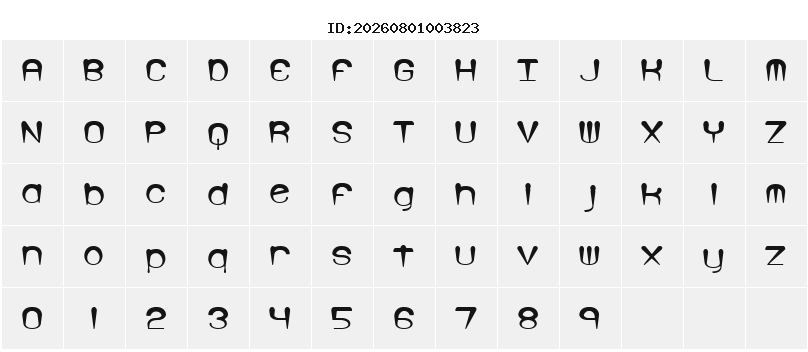
Larkspur (BRK) Preview
• Font Name: Larkspur (BRK)
• Full Font Name: Larkspur -BRK-
About Larkspur (BRK).ttf
Larkspur (BRK).ttf is a modern, elegant sans-serif font designed for ultimate readability and visual harmony. Perfect for branding, headlines, web design, and print materials.